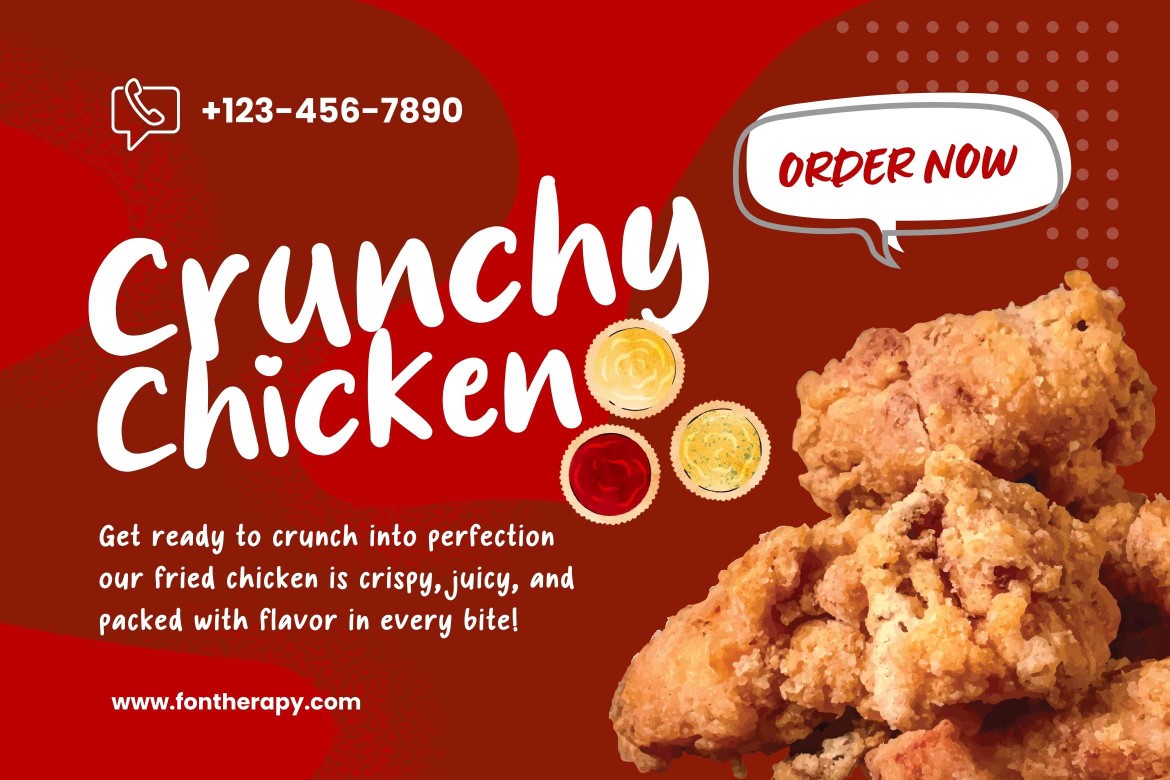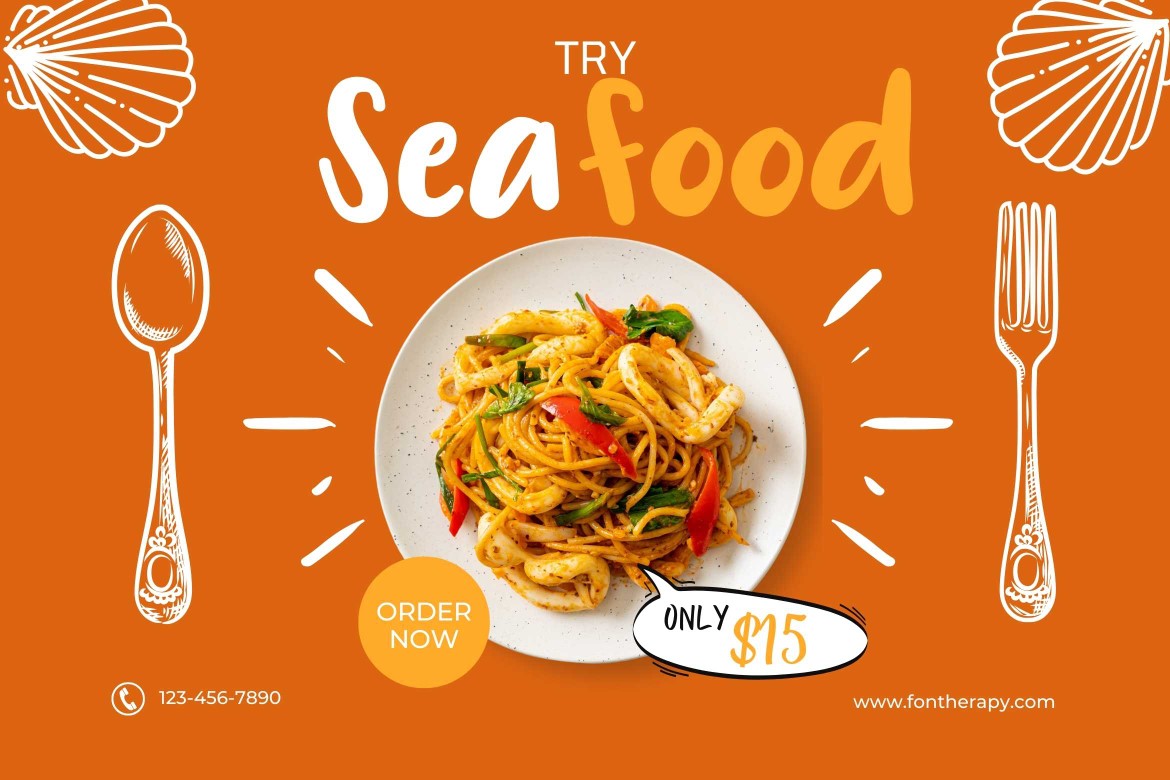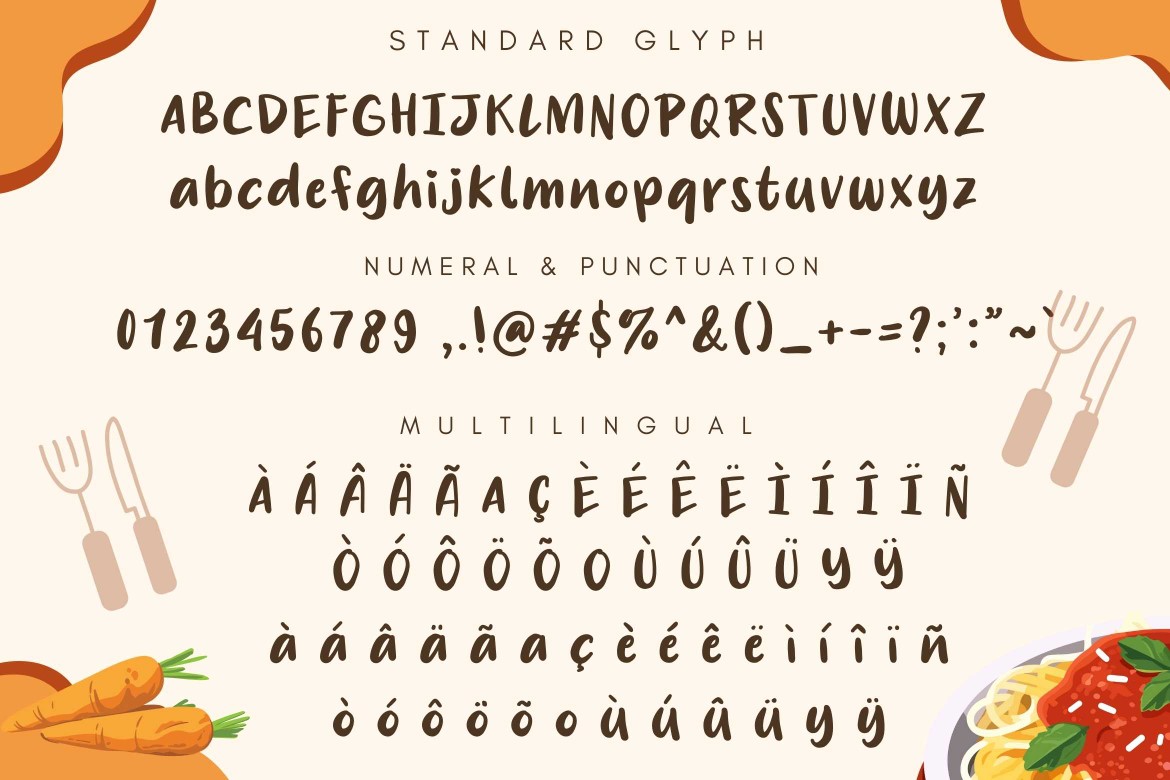
Food Blogger
Food Blogger is a charming and versatile handwritten font designed to bring a personal and inviting touch to your creative projects. Its playful yet clean style makes it perfect for a wide range of applications, including food blogs, restaurant branding, recipe cards, packaging, social media content, and event posters.
The font's rounded edges and slightly irregular strokes give it an authentic, handcrafted feel, evoking warmth and approachability. Whether you're crafting a delicious menu design, creating attention-grabbing Instagram posts, or enhancing a cozy food-related logo, Food Blogger effortlessly blends personality with functionality. Its legibility and friendly aesthetic ensure that it stands out while remaining easy to read.
Food Blogger is the ideal choice for anyone looking to add a personal and flavorful touch to their designs, capturing the essence of creativity and good taste.